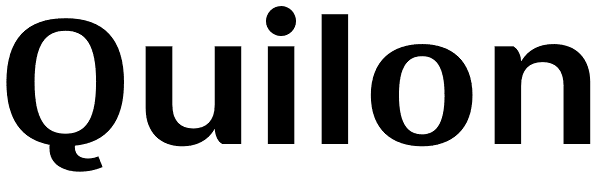
Quilon
Quilon is a high-contrast sans serif family. It’s design features also transcend the centuries – elements of both 19th century English grotesques and 1990s postmodernism are present in its letterforms. The family is an optimal choice for use in...